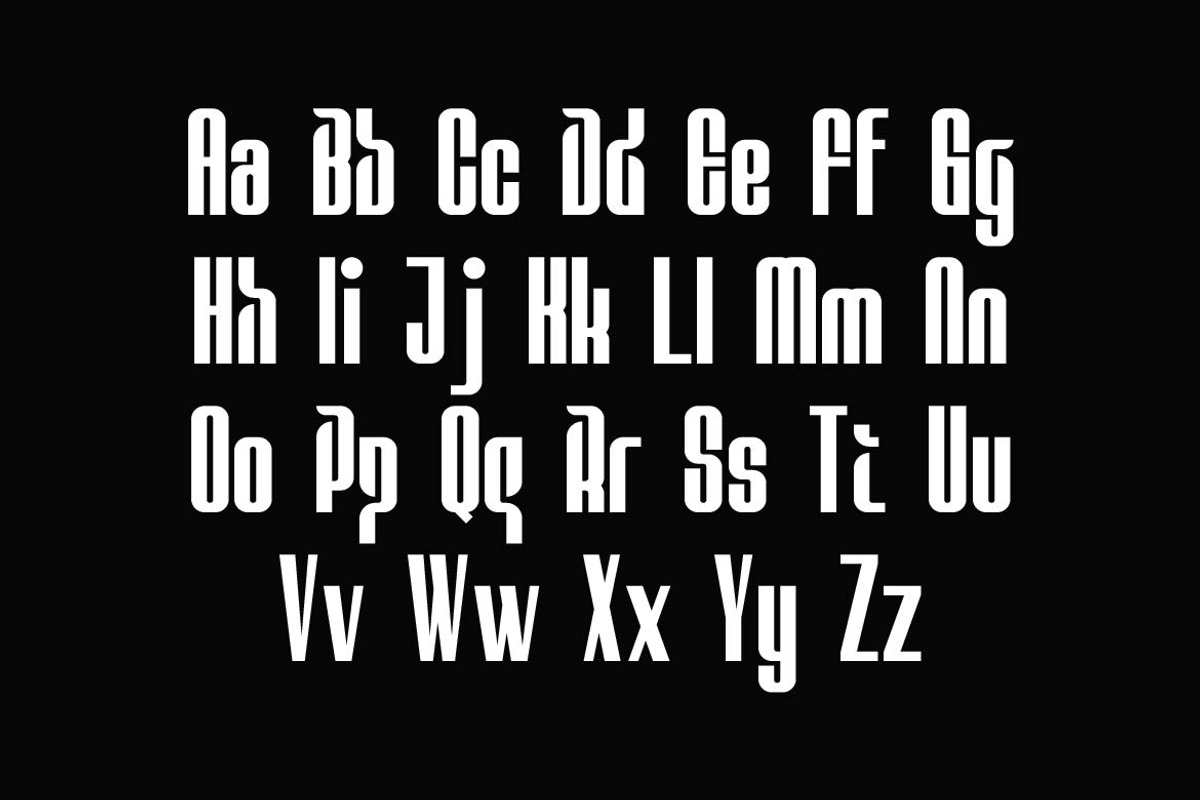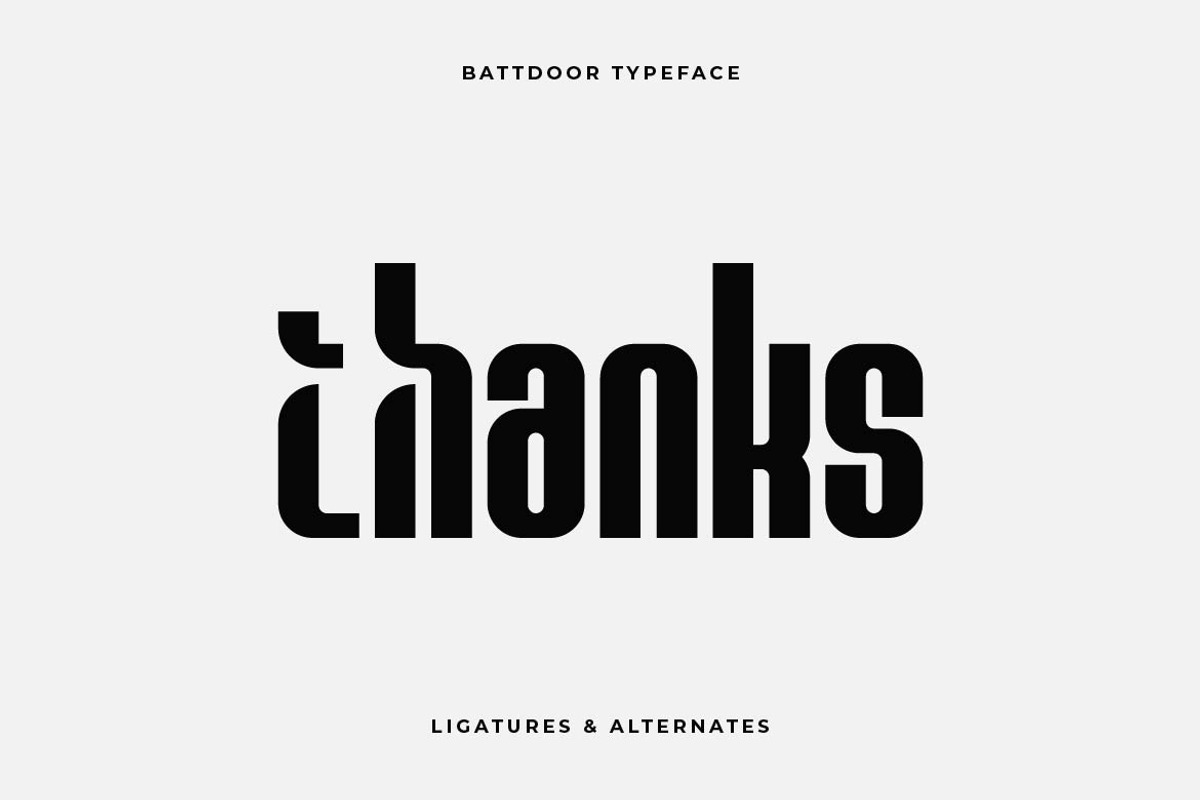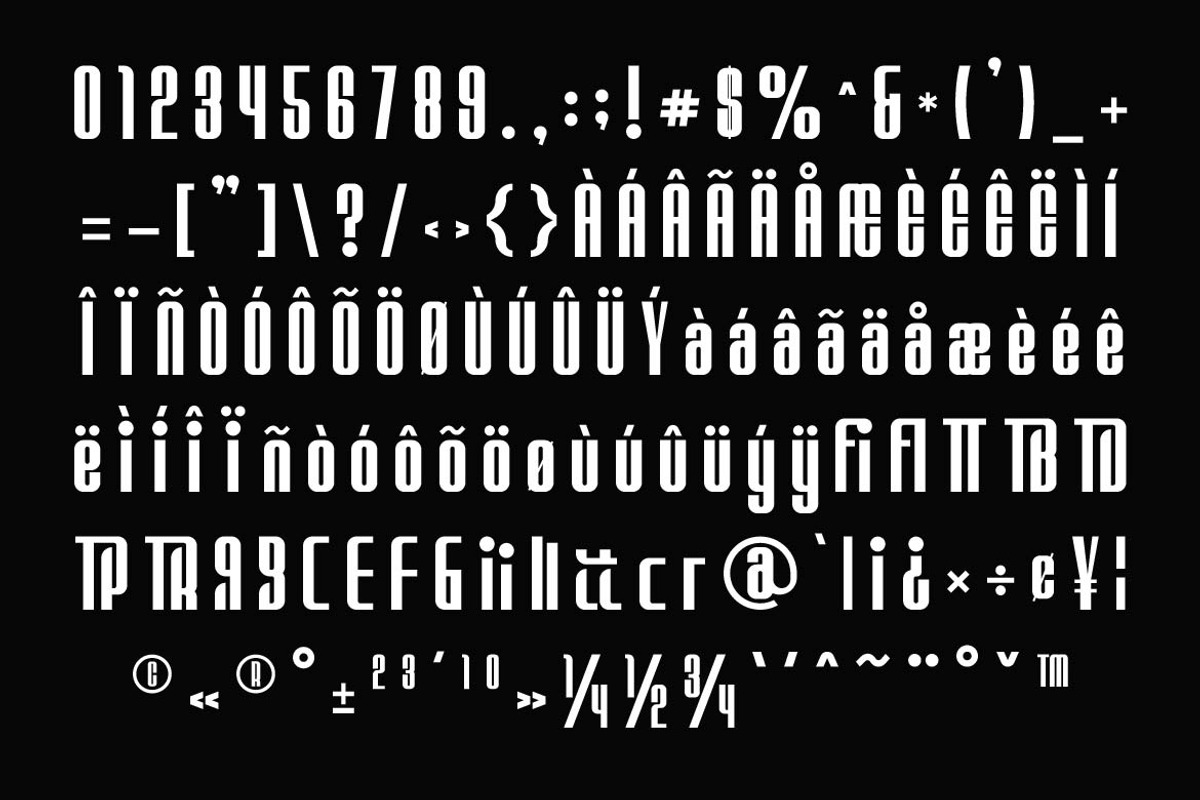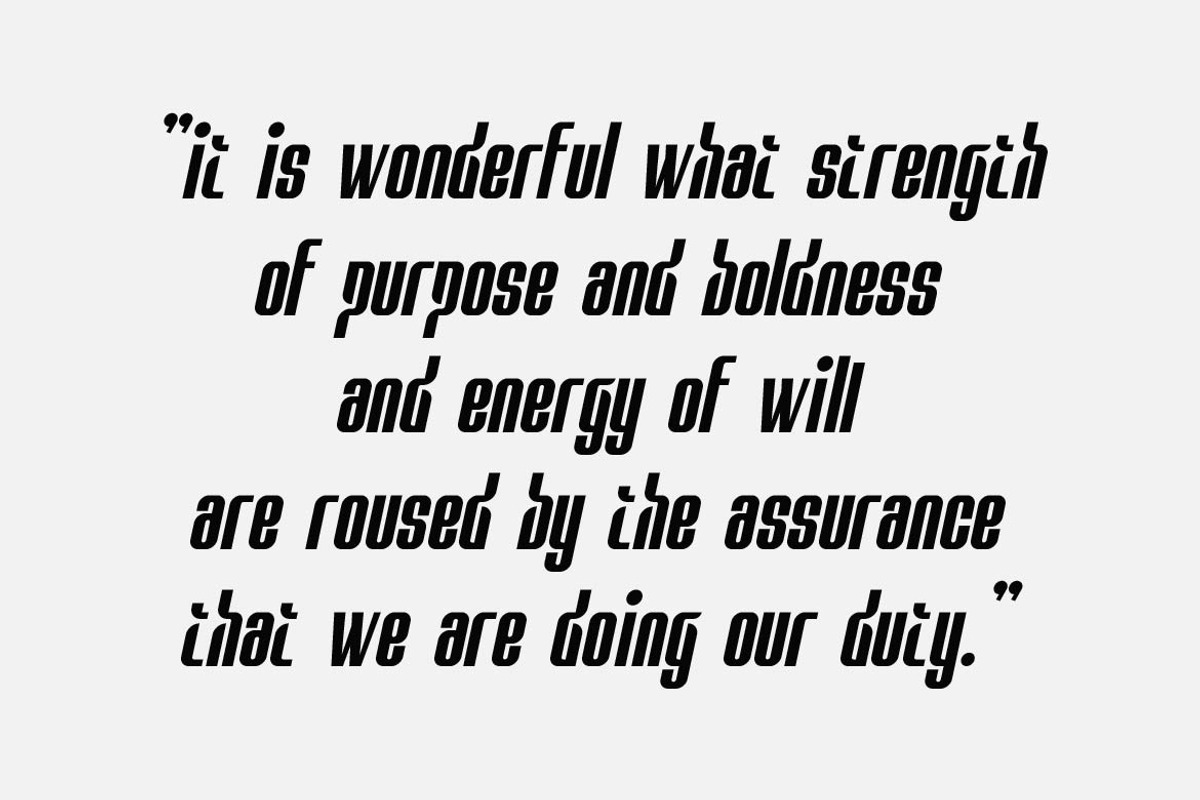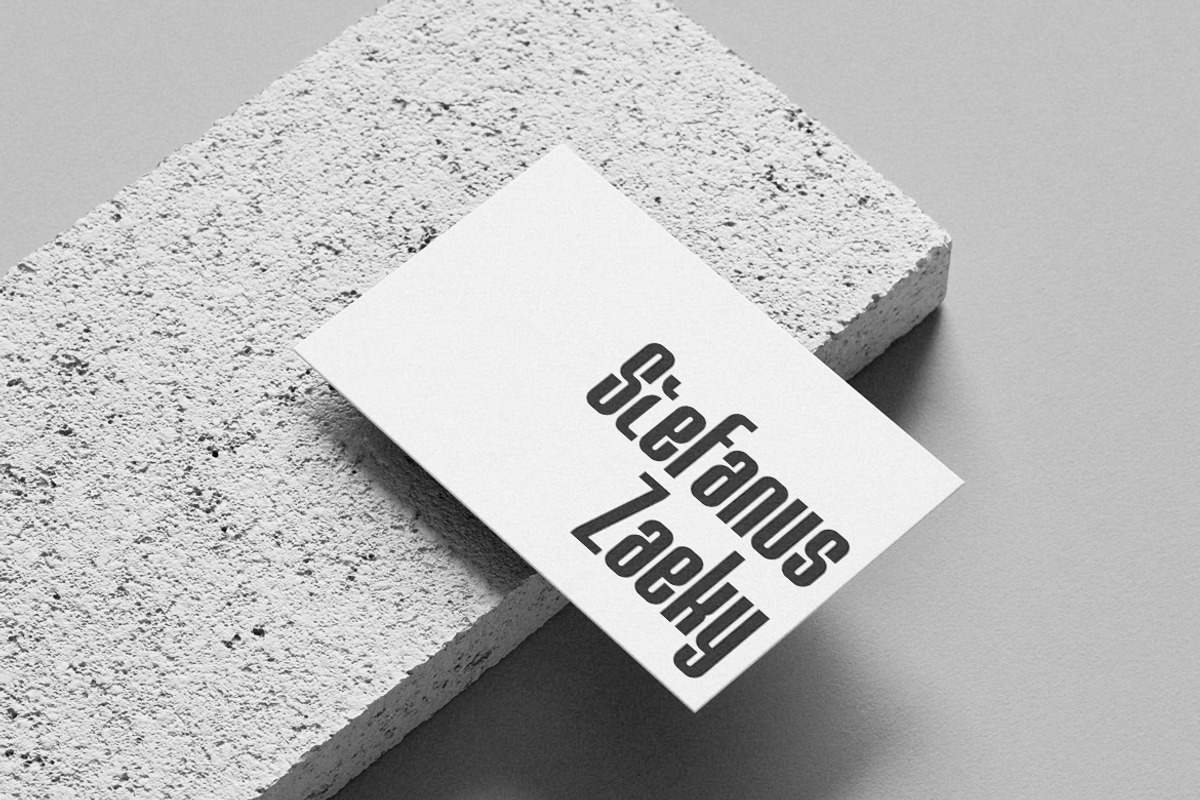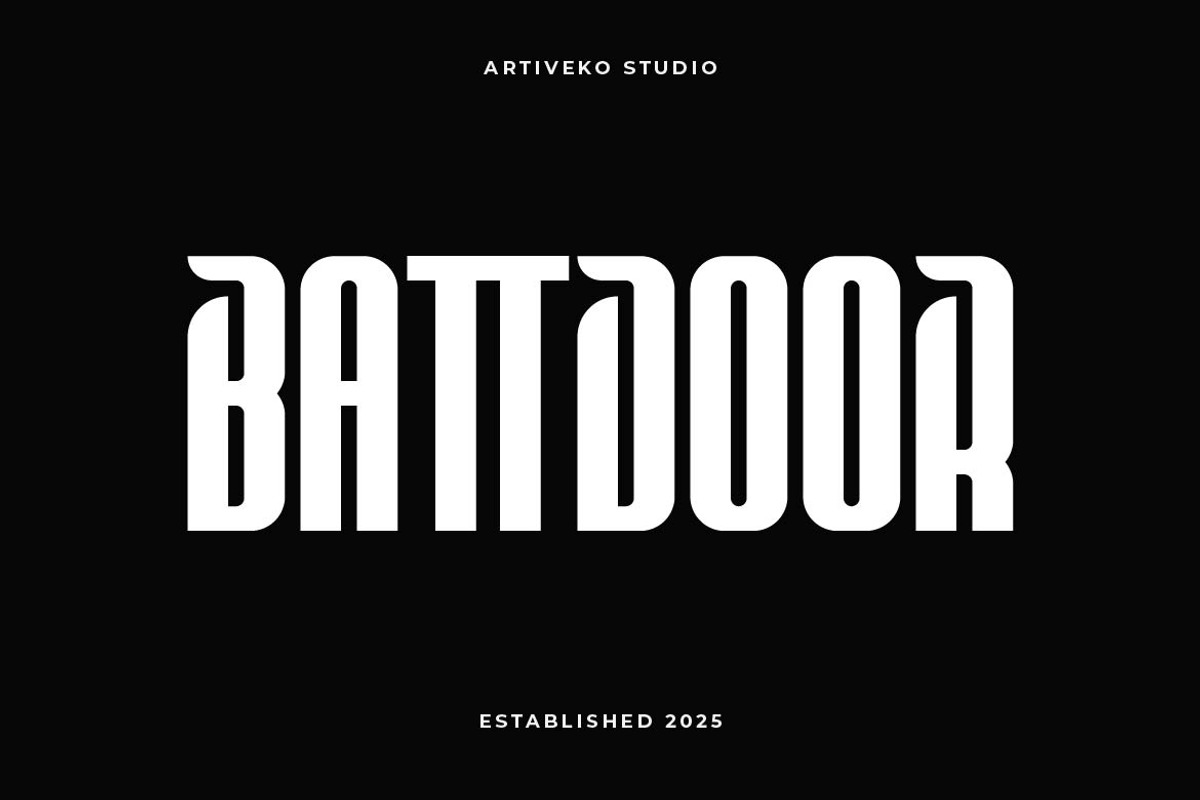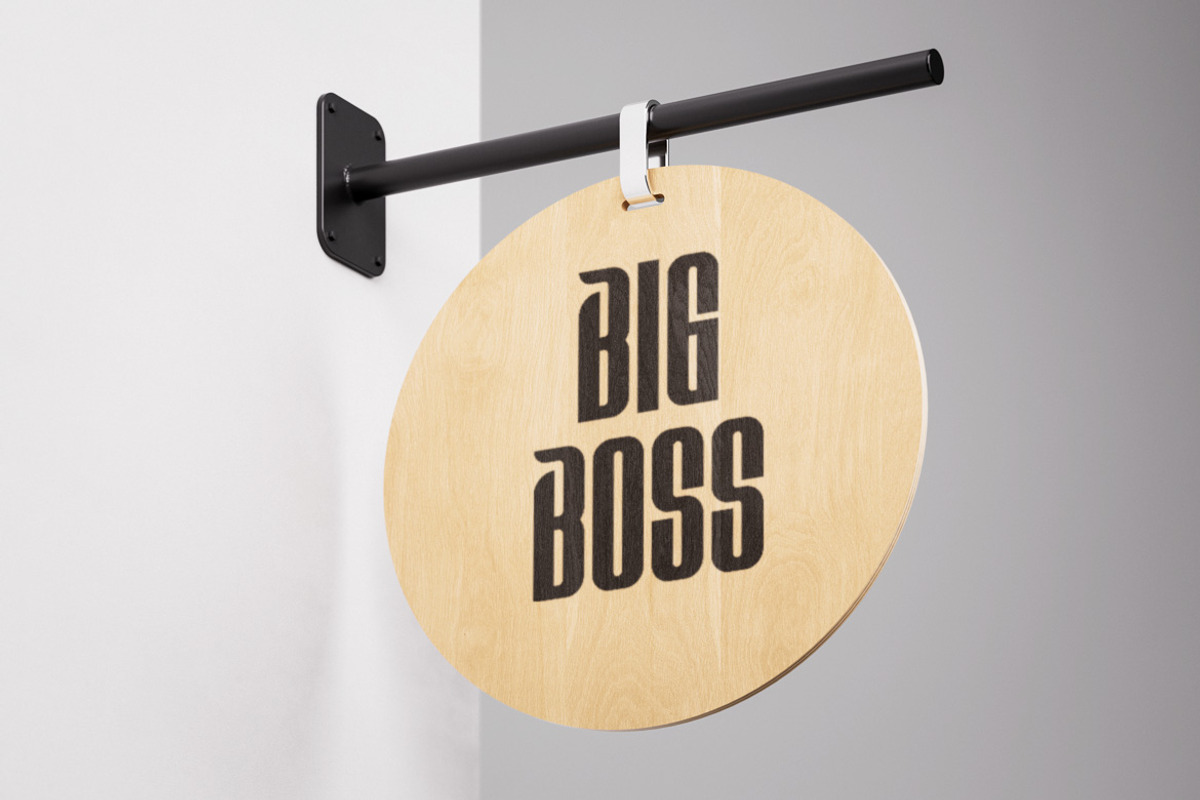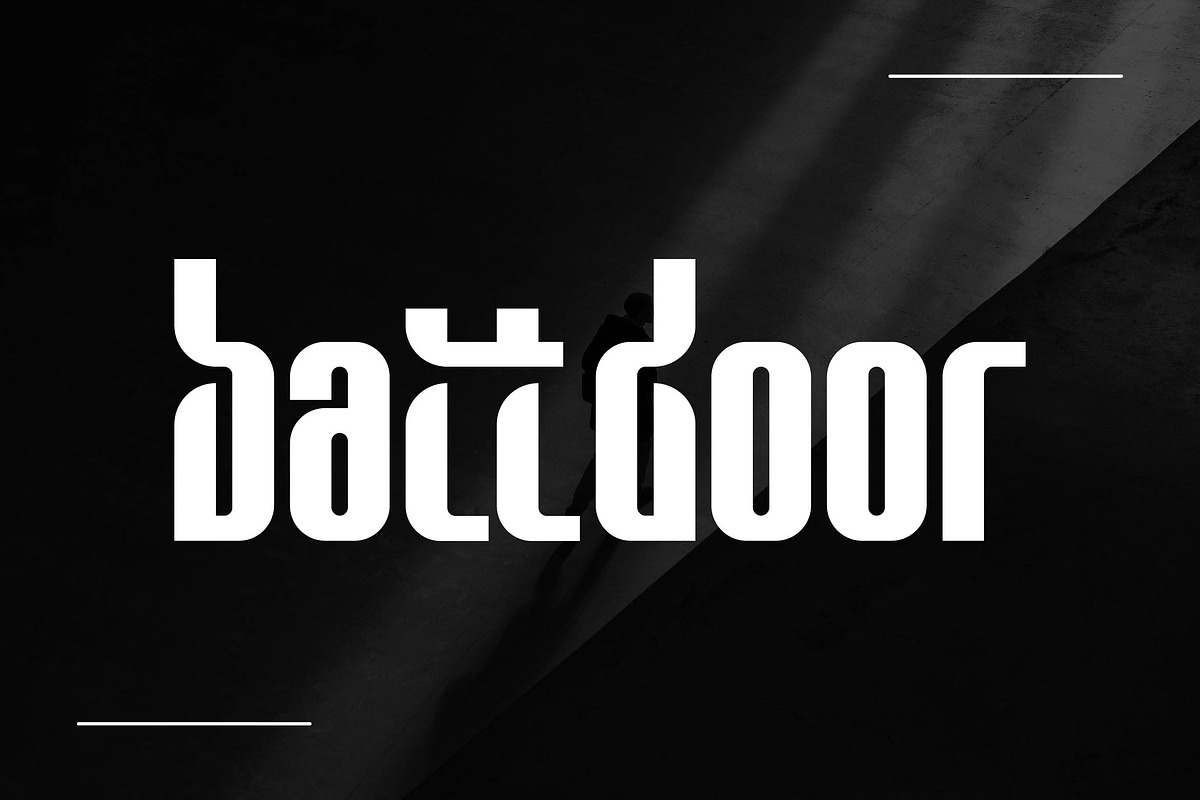
Battdoor Condensed Creative Sans
Battdoor is a sleek and expressive condensed sans serif font designed for impactful visual storytelling. With its narrow proportions, sharp detailing, and contemporary character structure, Battdoor delivers a dynamic and modern aesthetic perfect for brands that want to stand out.